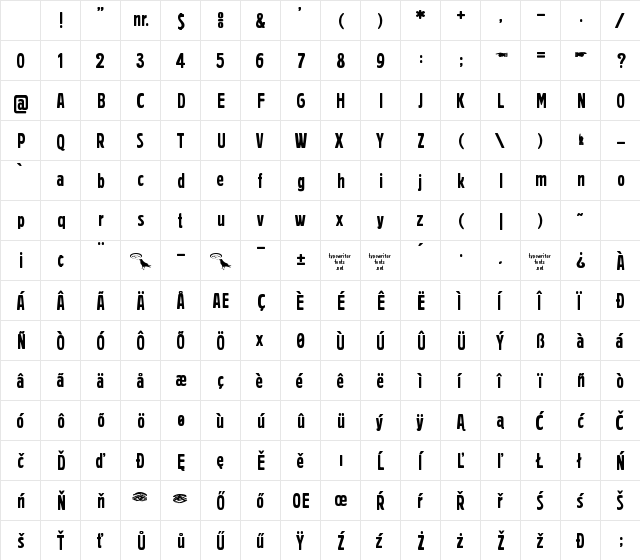
Complete Prager Headlines Normal glyph index. Displaying only characters natively supported by Prager Headlines Normal font.
Prager Headlines is a composed and adaptable typeface that performs quietly and consistently across a wide range of design contexts.
Who designed the Prager Headlines Normal font?
This font was published by Lukas Krakora. Check the technical specs section for copyright and designer details.